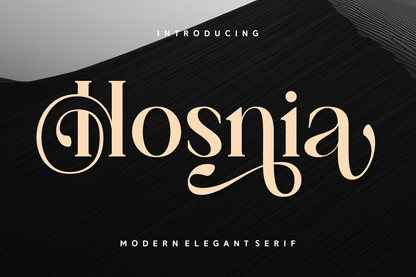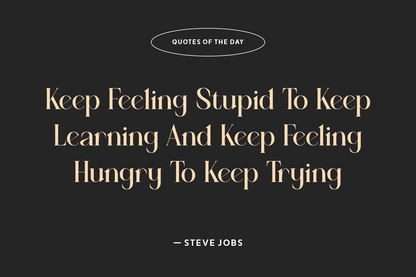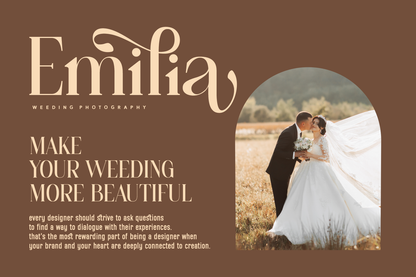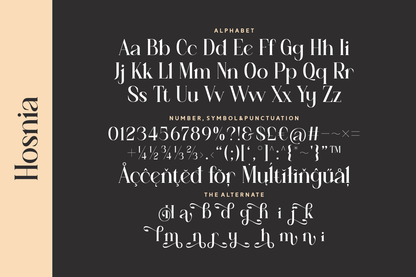
Hosnia is a highly stylized serif font with graceful ligatures, looping swashes, and baroque-inspired elegance. Designed to impress, it’s ideal for beauty packaging, wedding invitations, or high-end branding that calls for something bold and ornate.